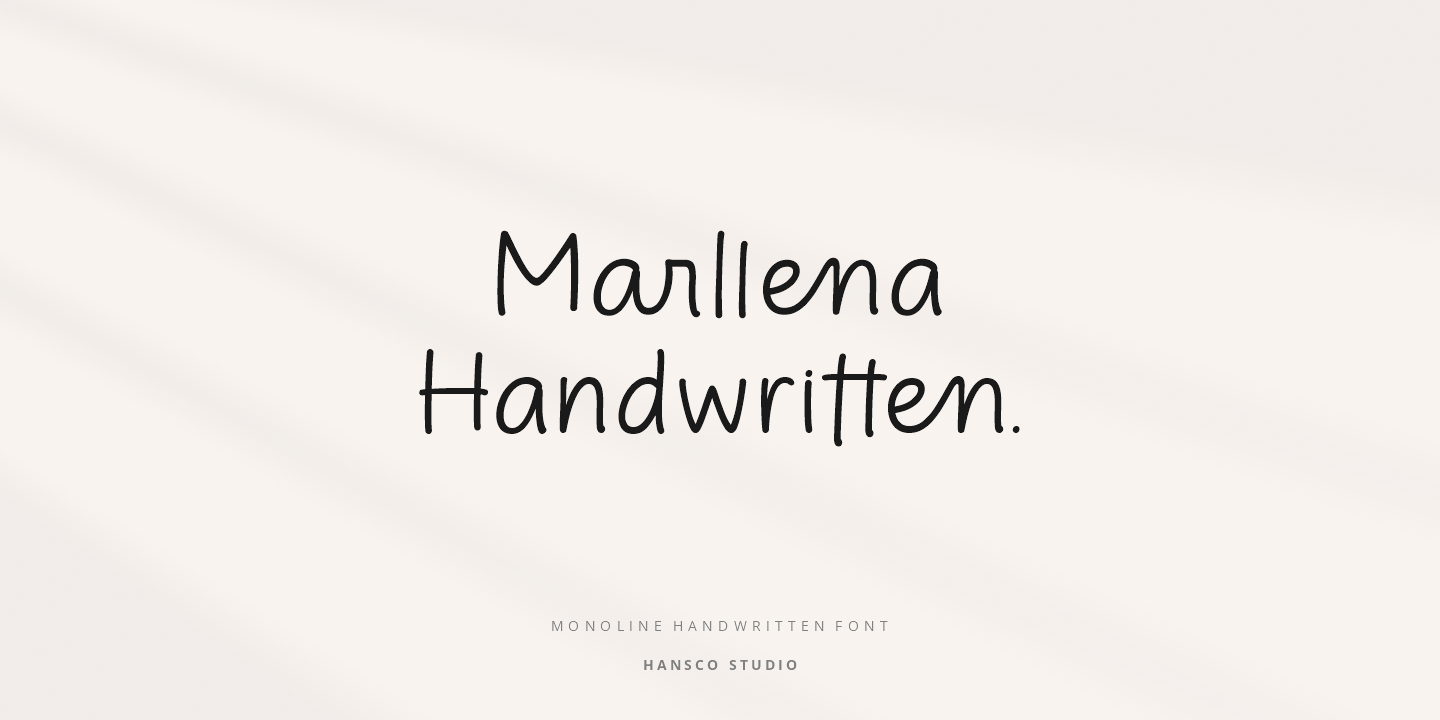
Marllena Monoline Font is perfect for minimalist brand logos, modern wedding invitations, elegant signature designs, contemporary art gallery signage, boutique fashion labels, sophisticated business cards, refined product packaging, upscale restaurant branding, architectural firm materials, and premium lifestyle publications.
What makes Marllena Monoline Font so exciting is its masterful demonstration of sophisticated simplicity through single-weight letterforms that achieve maximum elegance with minimal design elements. The font's philosophy embraces the "less is more" principle, featuring consistent stroke width, graceful curves, and refined proportions that create a sense of effortless sophistication and contemporary refinement. Each character flows seamlessly into the next with mathematical precision, creating a visual language that instantly communicates modern elegance, professional competence, and timeless aesthetic appeal. This remarkable typeface transforms ordinary text into expressions of understated luxury that resonate with audiences who appreciate clean design and sophisticated minimalism.
The Marllena Monoline Font family includes refined variations: Regular, Bold, Light, Medium, Condensed, Extended, Italic, Script, and Signature styles. Each variation maintains the font's characteristic monoline elegance while offering different levels of visual weight and stylistic sophistication for various contemporary design applications.
When searching for a typeface that embodies the essence of modern minimalism and sophisticated simplicity, Marllena Monoline Font Free Download represents the perfect fusion of contemporary design principles with timeless elegance that elevates any project to new levels of refined aesthetic appeal.
The precisely crafted letterforms of Marllena Monoline Font demonstrate superior attention to minimalist design principles, featuring consistent stroke weights, perfect spacing, and harmonious proportions that ensure optimal readability while maintaining the font's distinctive contemporary character. Its versatile design adapts beautifully from delicate jewelry tags to bold architectural signage.
Professional designers working on luxury brands, architectural firms, and contemporary lifestyle companies particularly value the font's ability to convey sophistication, modernity, and refined taste. The typeface works exceptionally well for projects targeting design-conscious consumers, professional services, and anyone seeking to project clean positioning and contemporary elegance.
The comprehensive OpenType features of Marllena Monoline Font include stylistic alternates, elegant ligatures, and specialized contemporary characters that enable designers to create sophisticated modern typography while maintaining the font's distinctive minimalist character throughout all design elements and contemporary applications.